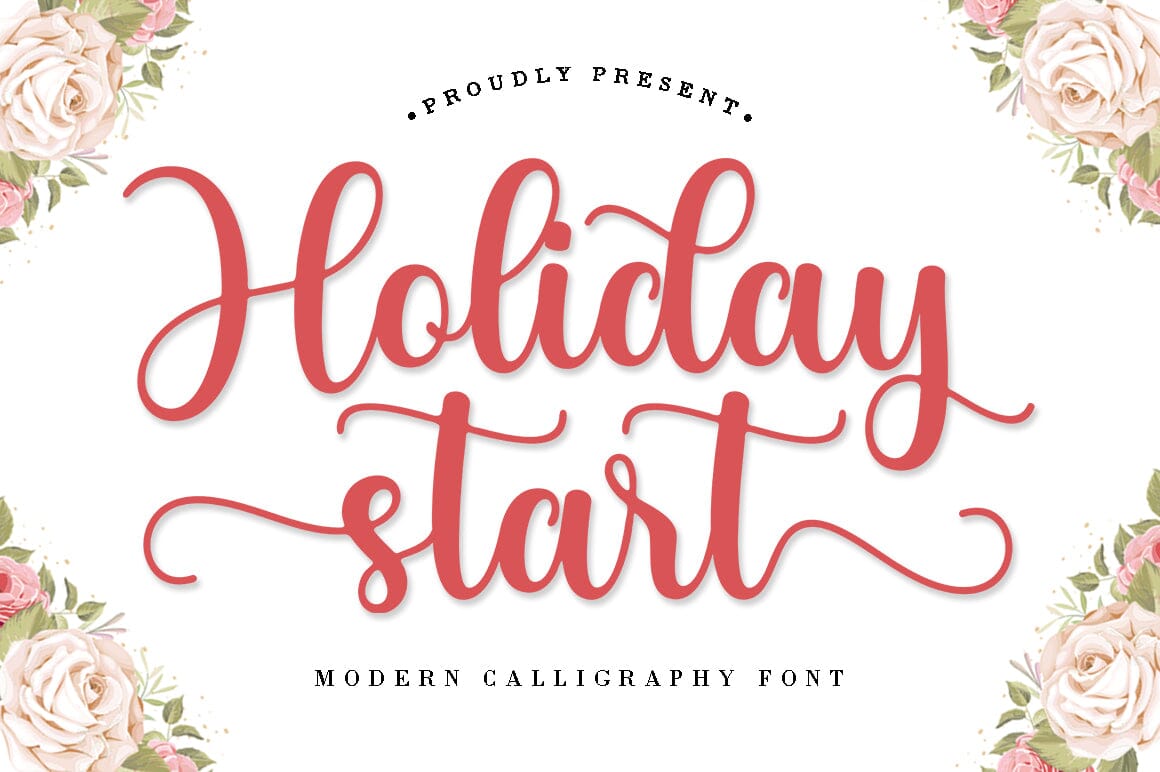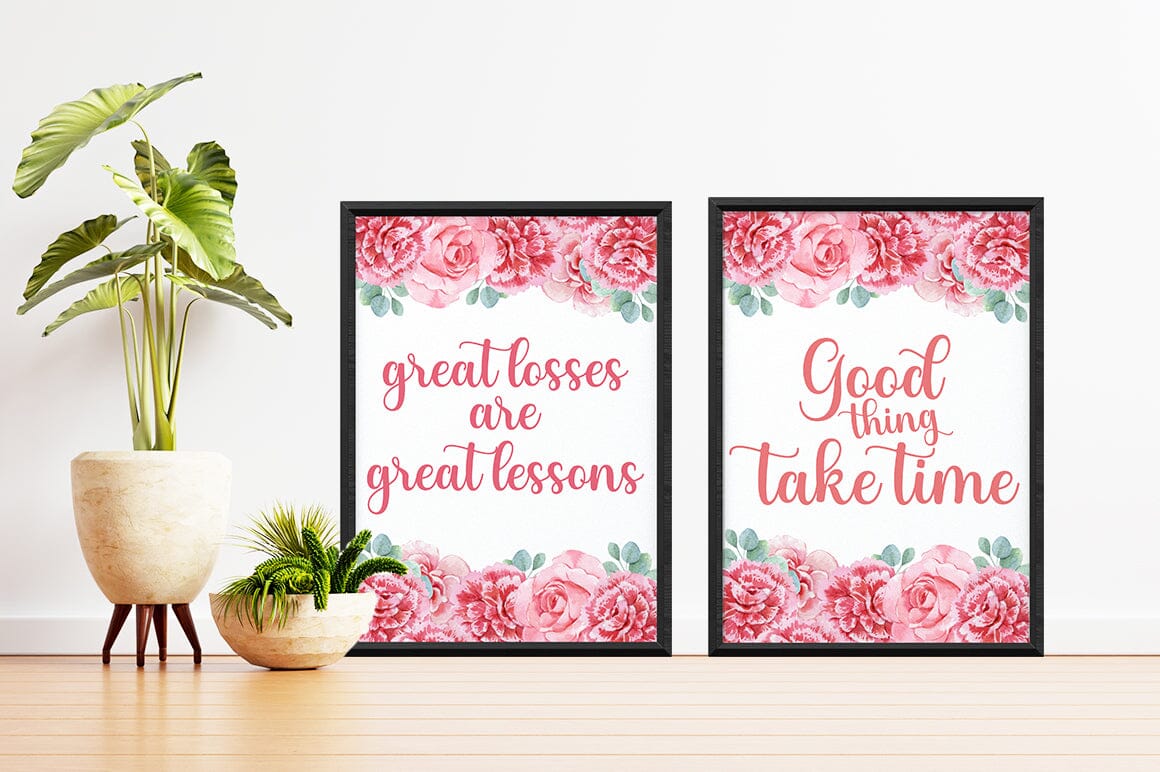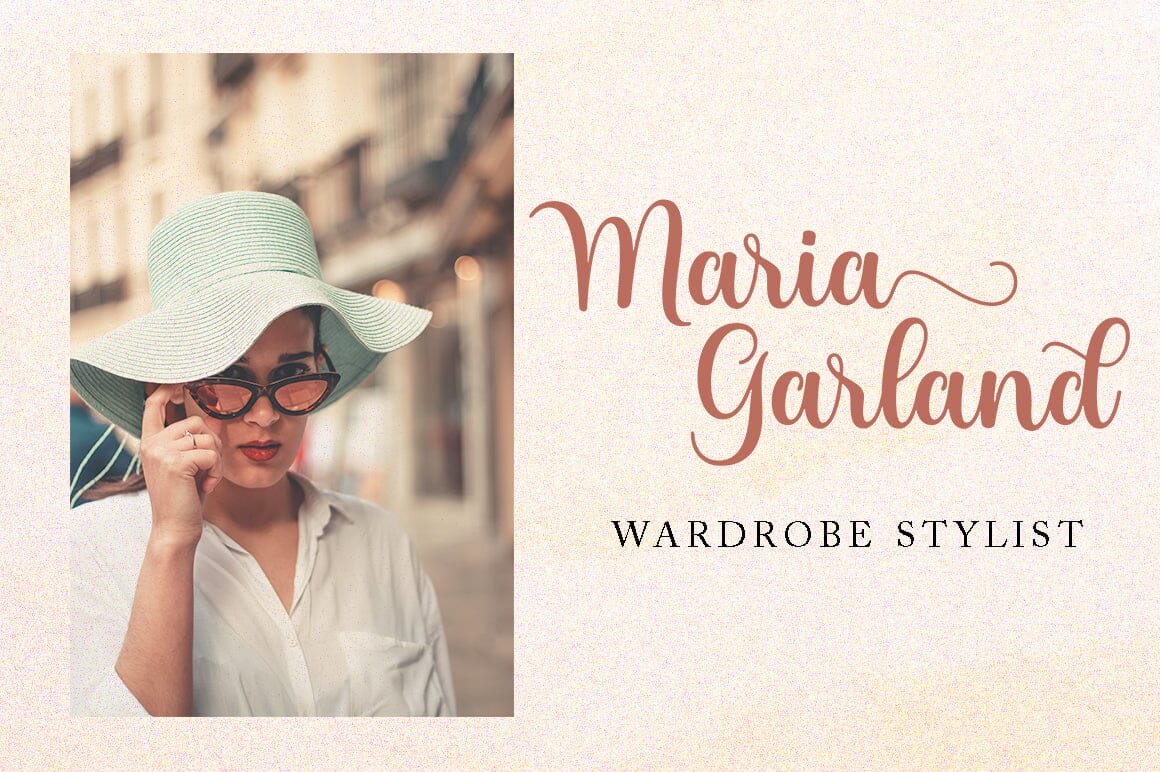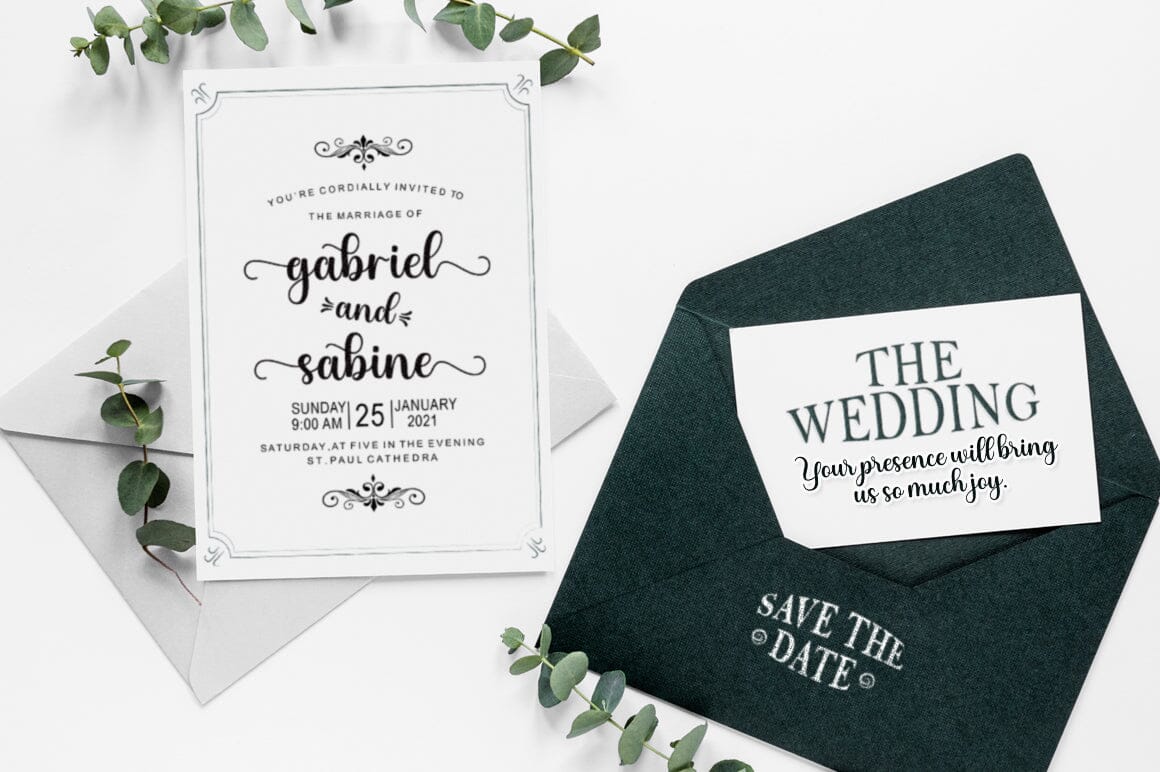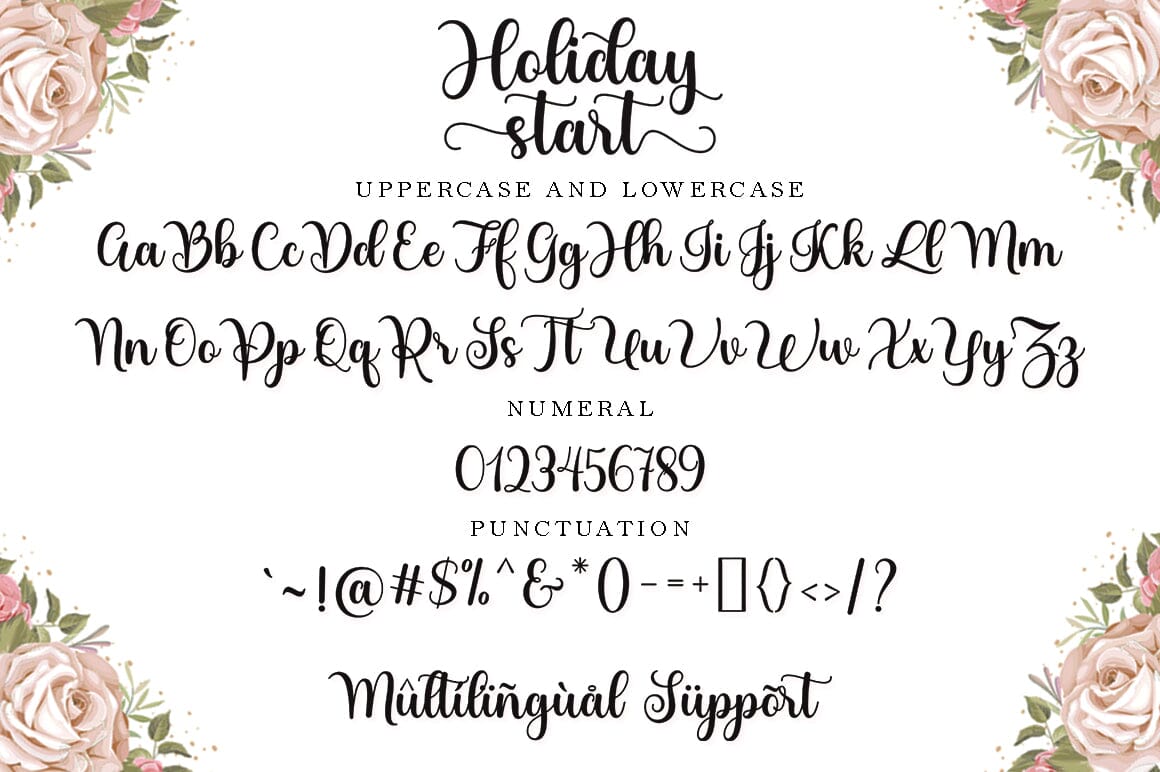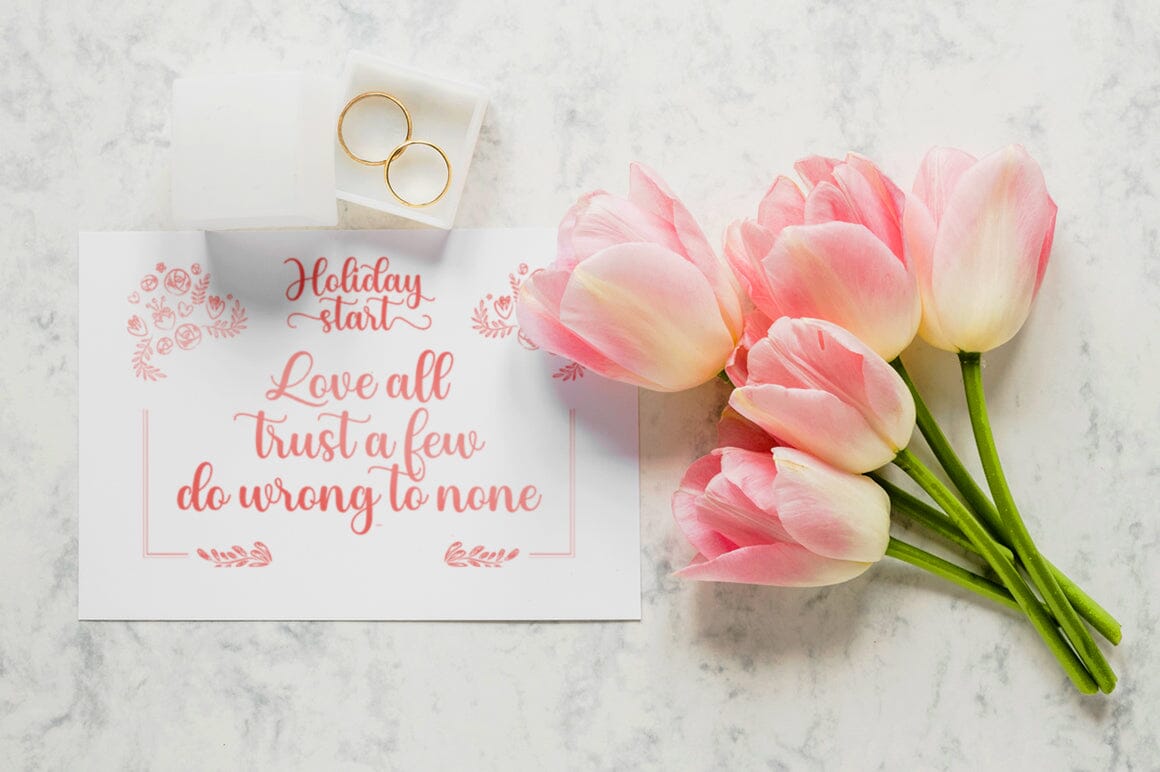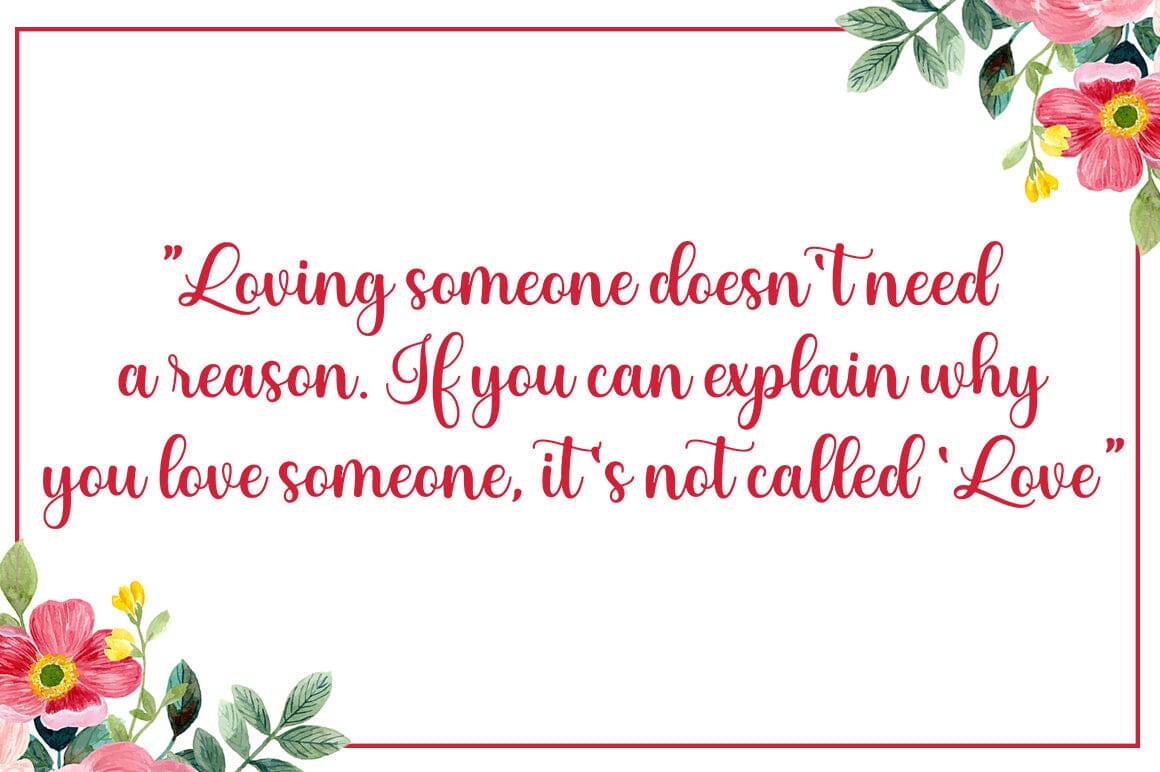
Holiday Start
About Holiday Start
Holiday Start В is a romantic and sweet calligraphy typeface with characters that dance along the baseline. It has a casual and yet elegant touch. It can be used for various purposes such as logos, wedding invitations, headings, t-shirts, letterhead, signage, lables, news, posters, badges etc. В The fonts include OpenType features with stylistic alternates, ligatures and multiple language support. To enable the OpenType Stylistic alternates, you need a program that supports OpenType features such as Adobe Illustrator CS, Adobe Indesign & CorelDraw X6-X7, Microsoft Word 2010 or later versions. В There are additional ways to access alternates/swashes, using Character Map (Windows), Nexus Font (Windows), Font Book (Mac) or a software program such as PopChar (for Windows and Mac). В How to access all alternative characters, using Windows Character Map with Photoshop: https://www.youtube.com/watch?v=Go9vacoYmBw В How to access all alternative characters using Adobe Illustrator: http://youtu.be/iptSFA7feQ0 В How to use stylistic sets font in Microsoft Word 2010 or later versions: https://youtu.be/x1A_ilsBsGs В Thank You.